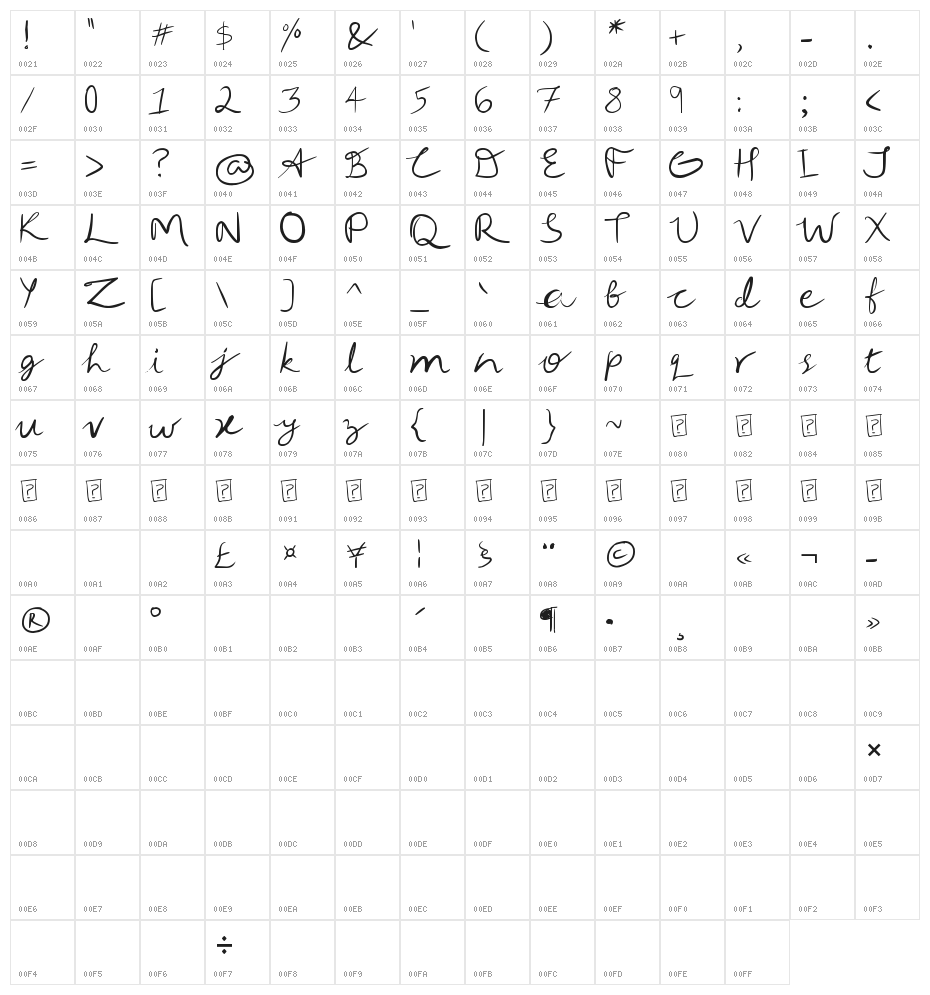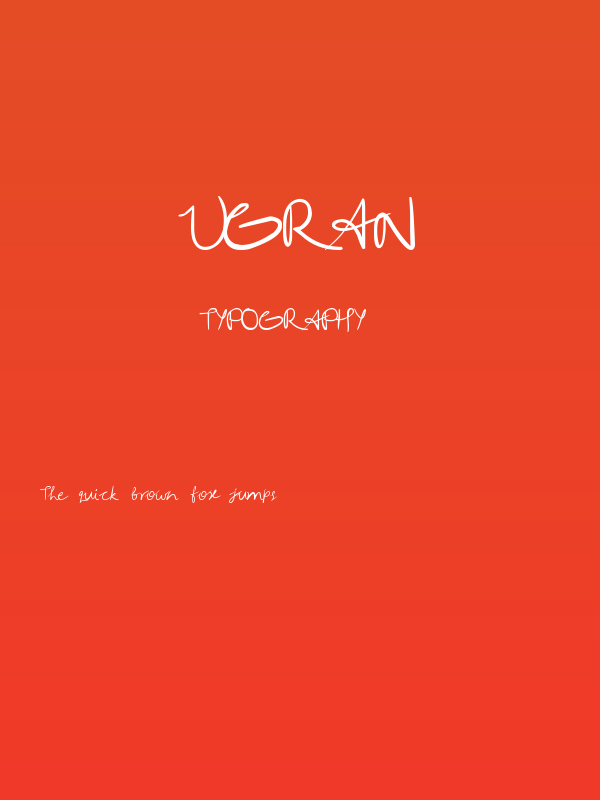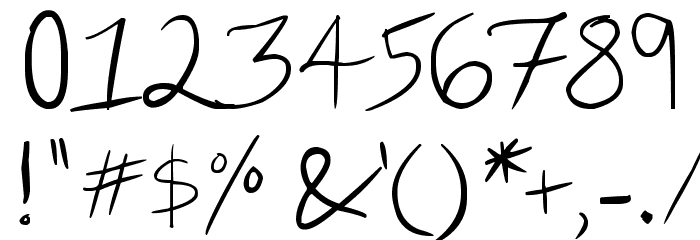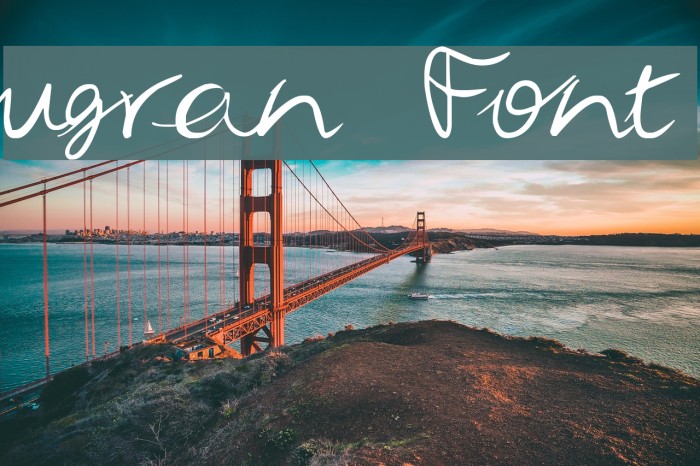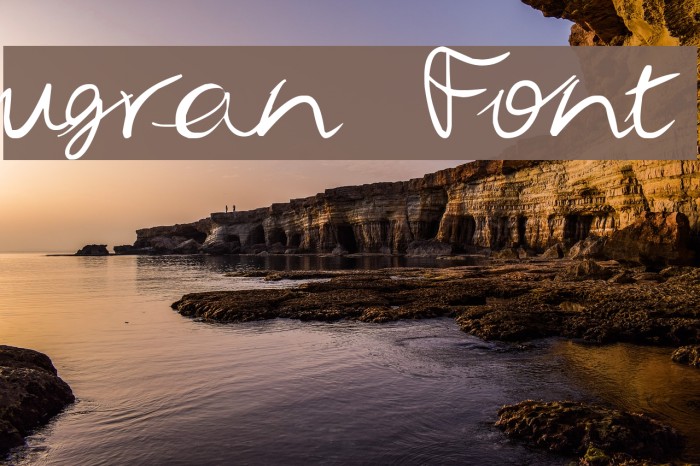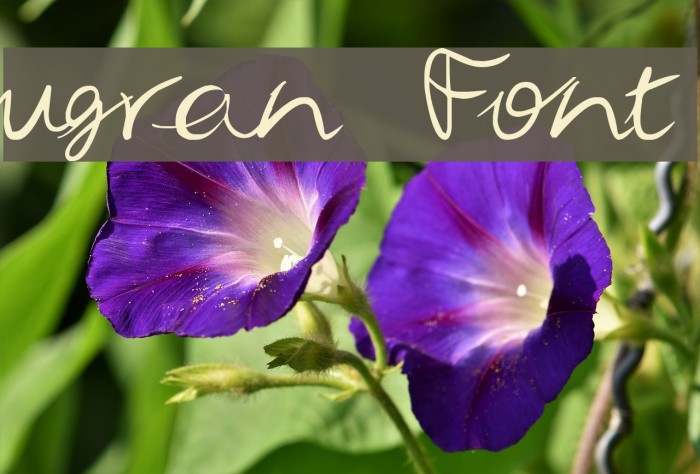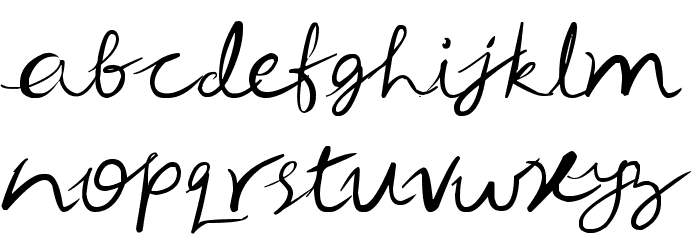
ugran Font
ugran Description
This font exudes a lively and dynamic handwritten style, characterized by its fluid and cursive letterforms. The strokes are varied in thickness, giving it a natural and spontaneous appearance. The uppercase letters are bold and expressive, while the lowercase letters maintain a consistent flow, enhancing readability. Numbers and special characters are crafted with the same energetic flair, making them stand out. The overall design is playful yet elegant, suitable for projects that require a personal touch. Its unique style makes it ideal for creative and artistic applications, where a sense of individuality is desired.
UGRAN UPPERCASE
UGRAN LOWERCASE
UGRAN OTHER CHARS